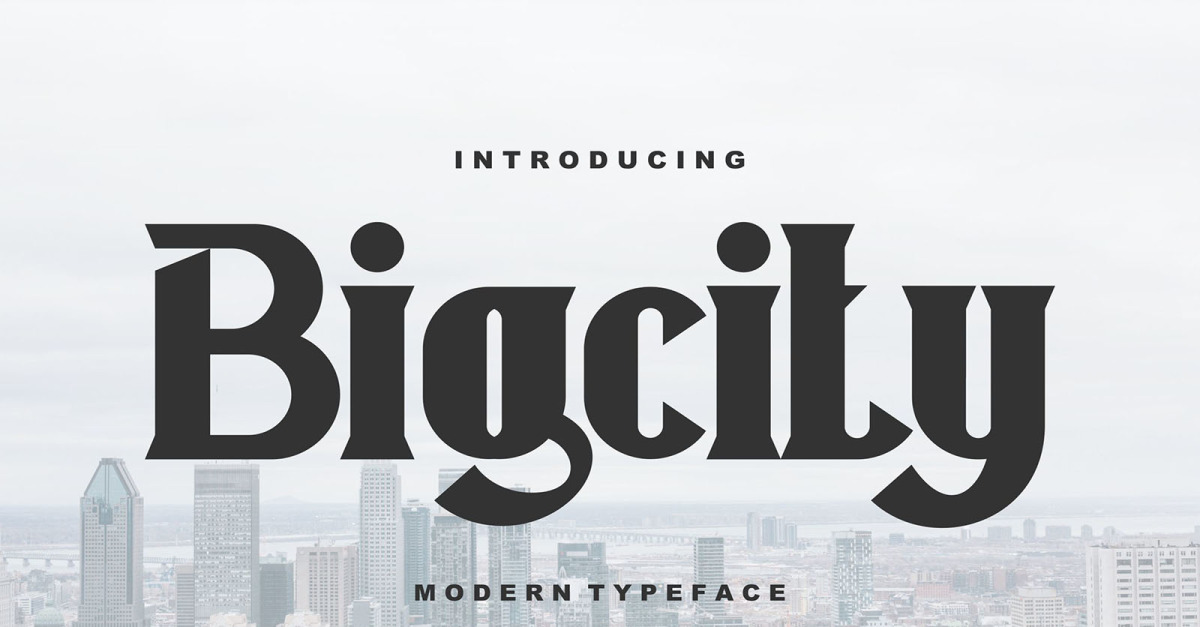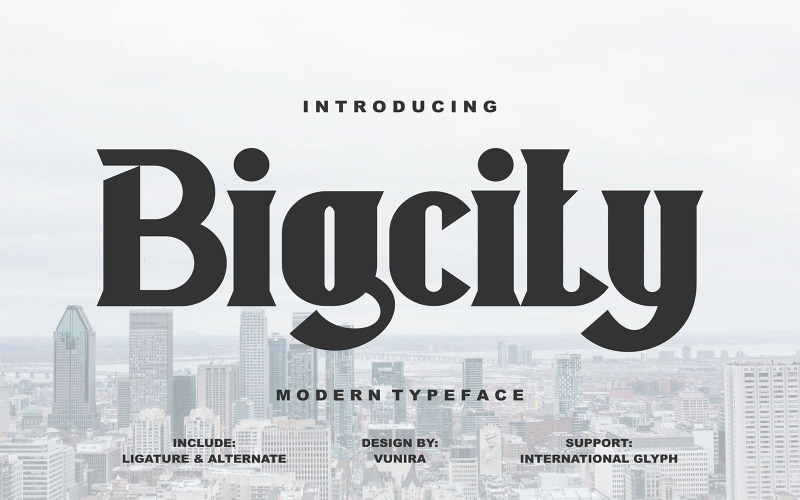
Bigcity | Modern Typeface Font
**Bigcity | Modern Typeface Font** with a calligraphy style, So beautiful on invitation like greeting cards, branding materials, business cards, quotes, posters, and more!